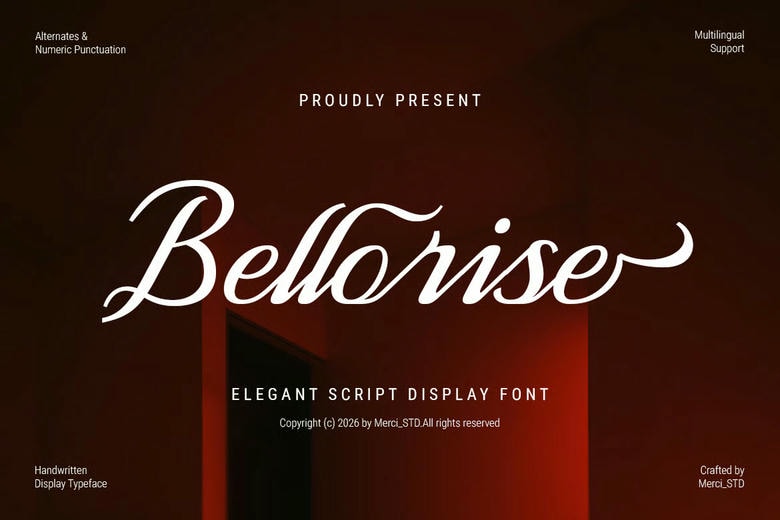
Bellorise Font
Bellorise is a handwritten script font that features graceful curves, stylish swashes, and elegant letter shapes. It works well for premium branding, fashion, beauty products, wedding stationery, social media, logos, packaging, and editorial projects.
Bellorise Handwritten Script Font